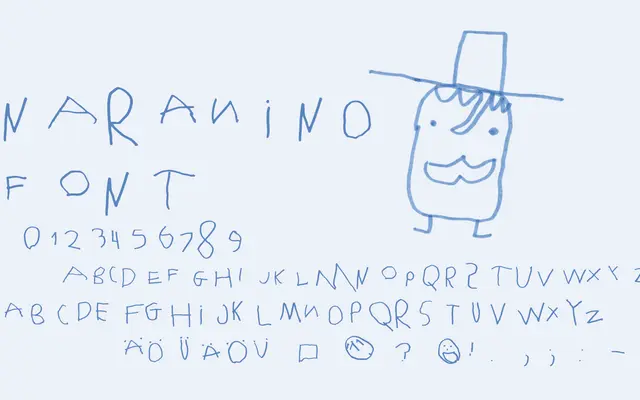
NaraNino
Type Different · Lopetz · 2012
A single-weight font drawn directly from the handwriting of designer Lopetz's six-year-old son, with royalties going to the child's piggybank.
Digitised from real childhood handwriting in 2012, the font carries the natural irregularity of a young hand still learning the alphabet. Coverage is basic Latin with Latin-1 supplements and a small selection of extended characters. It suits projects that call for an authentic, unaffected children's hand rather than a polished calligraphic imitation.
Digitised directly from the handwriting of a six-year-old child, giving it an authentic, uneven, casual hand quality typical of naïve or children's handwriting fonts.